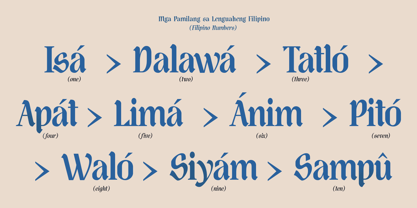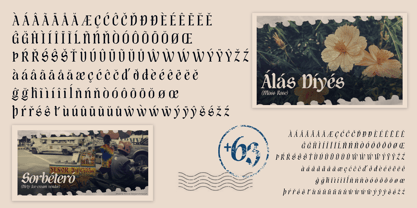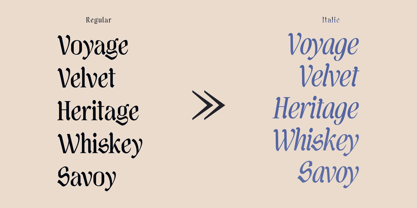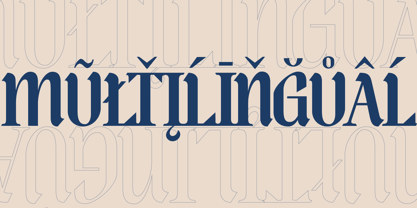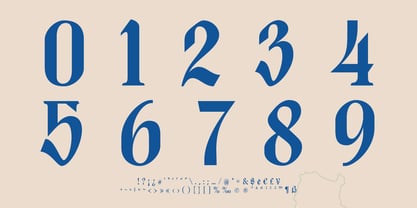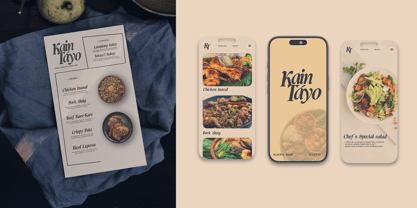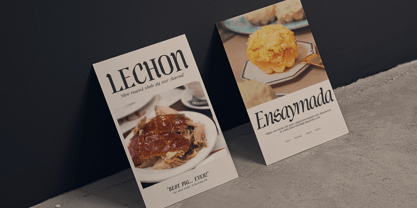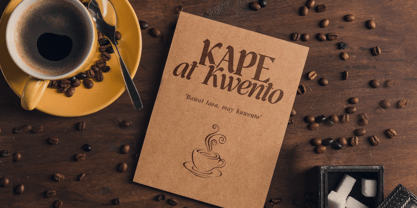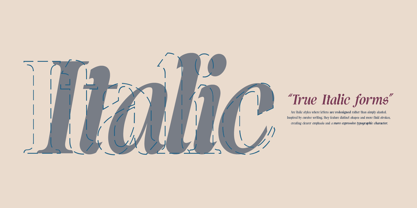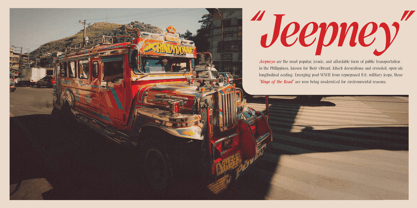
Guhit Pluma
von Lurinzu Studios
Die Schriftfamilie Guhit Pluma wurde von Lorenzo Gabriel Martinez entworfen und von Lurinzu Studios veröffentlicht. Guhit Pluma enthält 4 Stile und Familienpaketoptionen. Mehr über diese Familie
Guhit Pluma is a calligraphic serif typeface inspired by the expressive strokes of traditional pen writing. Its name comes from the Filipino words guhit (stroke) and pluma (pen), reflecting the fluid movement and organic rhythm that define its letterforms. Combining the elegance of calligraphy with a modern serif structure, Guhit Pluma offers a refined yet expressive voice for contemporary design. This typeface features graceful curves, dynamic stroke transitions, and balanced proportions that evoke the character of ink on paper. Designed primarily for display and editorial use, Guhit Pluma excels in headlines, posters, packaging, and branding projects where personality and warmth are essential. Its calligraphic influence conveys craftsmanship while ensuring the clarity and sophistication expected from a serif typeface. The family includes multiple weights, allowing designers to build hierarchy while preserving the distinctive rhythm of the design.
Designer: Lorenzo Gabriel Martinez
Foundry: Lurinzu Studios
Lurinzu Studios is a one man digital type - foundry based on Bacoor, Cavite Philippines started by Lorenzo Martinez in the year 2019. Expressive and display fonts are the main staples produced in this digital foundry.The main vision for this foundry is to create typefaces that could express the emotion of each message and letters as they are intended to be read.